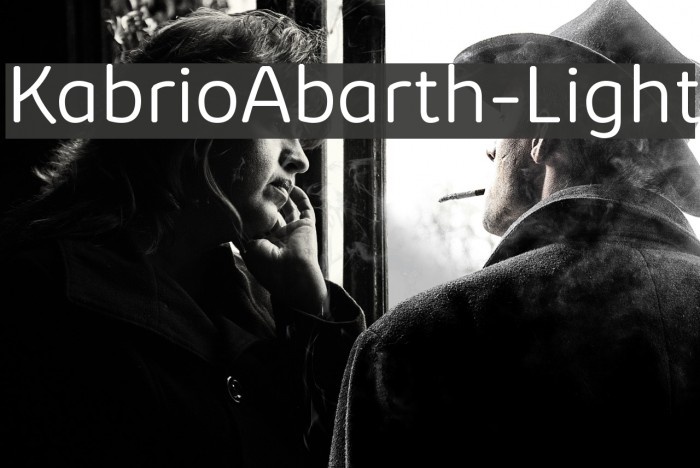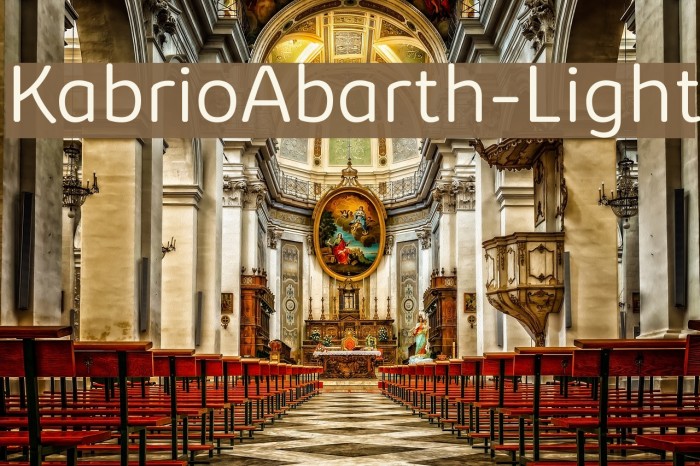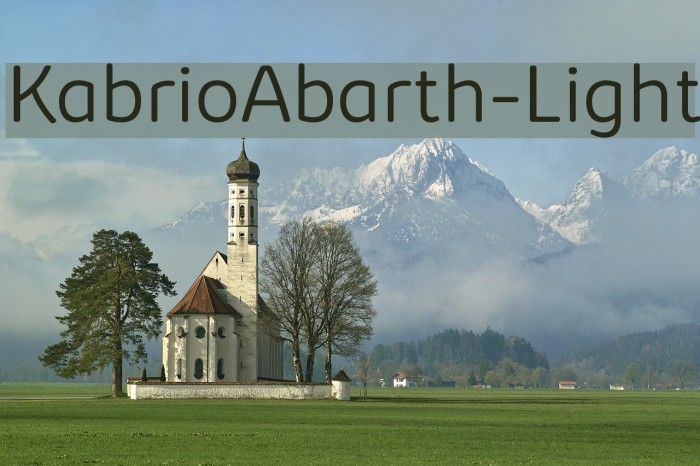
KabrioAbarth-Light Font
✎ Sans Serif
KabrioAbarth-Light Description
This font features a clean and modern sans-serif style with a light weight, making it ideal for minimalist designs. The characters are evenly spaced with a normal width, providing excellent readability. The uppercase and lowercase letters maintain a consistent height, contributing to a harmonious appearance. The numerals and special characters are designed with the same attention to detail, ensuring uniformity across all glyphs. The font's simplicity and elegance make it versatile for various applications, from digital interfaces to print media.
| Use Case | Headlines, Body text, Logos |
| Proposed Projects | Ideal for web design, branding, corporate materials, and user interfaces. |